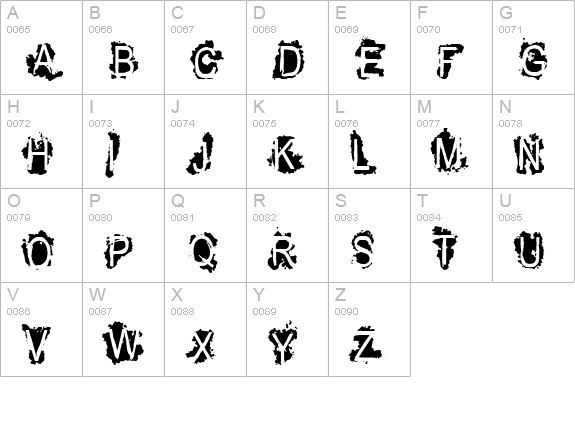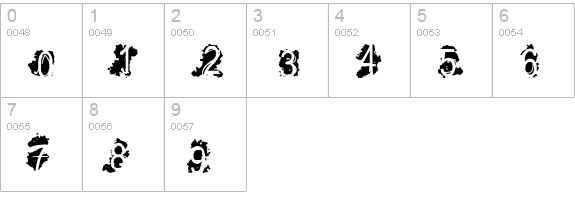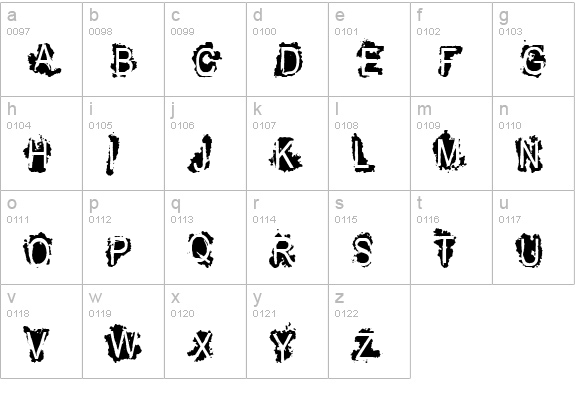
VTKS REFUSED font exudes a rebellious and edgy vibe with its bold and distinctive letterforms. The font features sharp angles and unique shapes that give it a modern and dynamic appearance. Perfect for creating eye-catching headlines, posters, and branding materials, VTKS REFUSED adds a touch of attitude and personality to any design. What makes VTKS REFUSED even more appealing is that it is available for free download at FontsMarket.com. This means that you can easily access and use this striking font in your projects without any cost. Embrace the boldness of VTKS REFUSED and make a statement with your designs today!